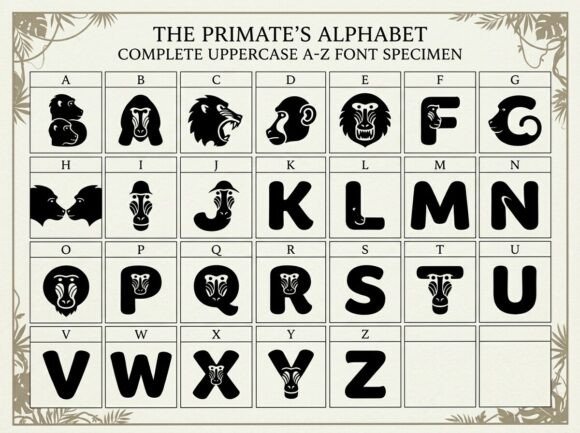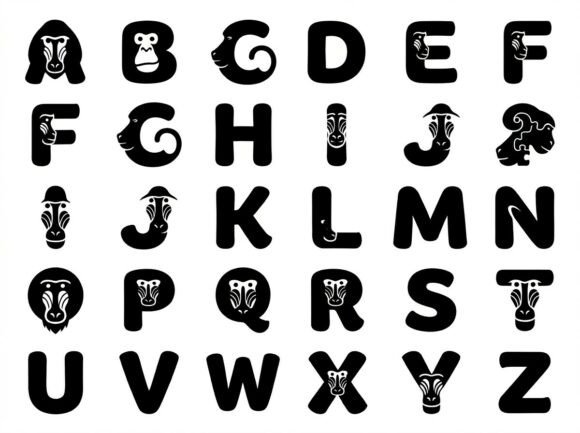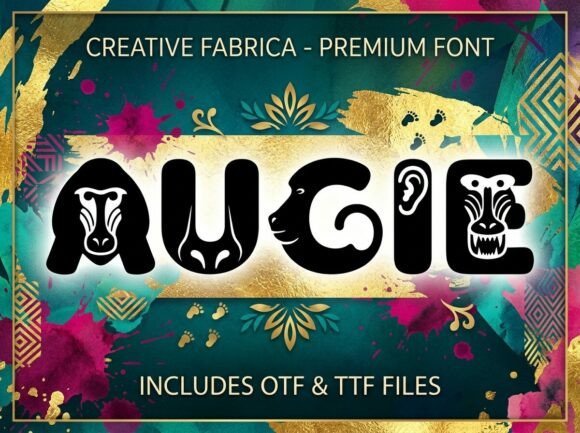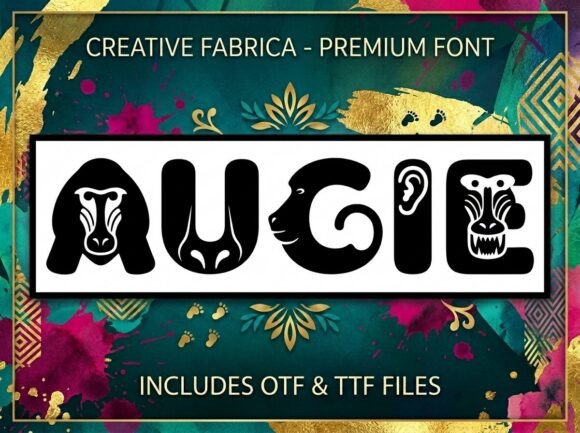
Introducing Augie Font: The Ultimate Display Font for Creative Rebels
In the world of typography, a new star has emerged: Augie Font. This avant-garde decorative display font is engineered to be the focal point of any composition, making it perfect for creators who refuse to blend in. With its commanding visual personality and unique artistic flourishes, Augie Font is set to revolutionize the way designers and crafters approach their projects.
Unleash Your Creativity with Augie Font
Augie Font is characterized by its strong, artistic soul and high-end, polished finish. This typeface is crafted for those who dare to be different, making it ideal for luxury packaging, experimental editorial layouts, high-impact headlines, signature logos, branding, conceptual packaging, posters, and social media design. Whether you’re a seasoned designer or a crafty entrepreneur, Augie Font provides the perfect tool to make your mark.
What Makes Augie Font Unique?
Augie Font is an all-caps (uppercase only) display typeface, which means that every letter is meticulously crafted to stand out on its own. By omitting lowercase characters, the designer has focused entirely on the intricate craftsmanship of each individual letter, ensuring that every one acts as a standalone work of art. This attention to detail results in a font that exudes confidence, sophistication, and creativity.
Key Features of Augie Font
- All-Caps (Uppercase Only): A deliberate design choice to focus on the craftsmanship of each individual letter.
Ideal Use Cases for Augie Font
Augie Font is perfect for projects that require a bold, eye-catching typography. Some ideal use cases include:
- High-Impact Headlines: Make a statement with Augie Font’s commanding presence.
- Signature Logos & Branding: Create a lasting impression with a unique and memorable typography.
- Conceptual Packaging: Elevate your product design with a font that exudes luxury and sophistication.
- Poster & Social Media Design: Stand out in a crowded feed with Augie Font’s bold and artistic style.
Why Choose Augie Font?
In a world where typography plays a crucial role in visual communication, Augie Font offers a refreshing alternative to traditional fonts. Its unique blend of artistic flair and high-end polish makes it an excellent choice for:
- Creative Rebels: Those who refuse to blend in and want to make a statement with their designs.
- Luxury Brands: Companies that require a sophisticated and high-end typography to reflect their brand image.
- Experimental Designers: Those who push the boundaries of design and typography.
Augie Font is a game-changer for designers and crafters who want to elevate their projects with a bold, artistic, and high-end typography. With its unique features, versatility, and attention to detail, this font is set to become a staple in the design community. Whether you’re working on a luxury packaging project or an experimental editorial layout, Augie Font provides the perfect tool to make your mark and leave a lasting impression.